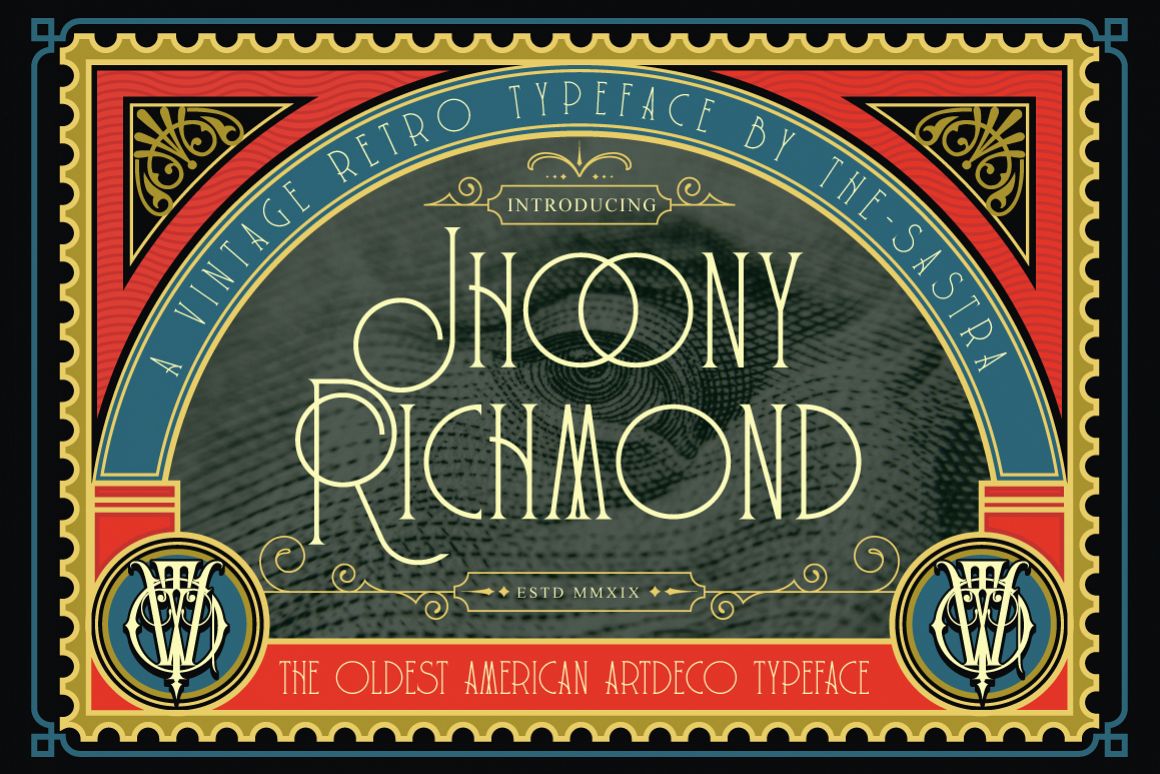
Jhoony Richmond
Jhoony richmond
Introducing a new Display font called Jhoony richmond.
Jhoony richmond typeface is perfect for badges, branding, labels,
apparel, headlines, signage, logo, quote, apparel and other creative
applications.